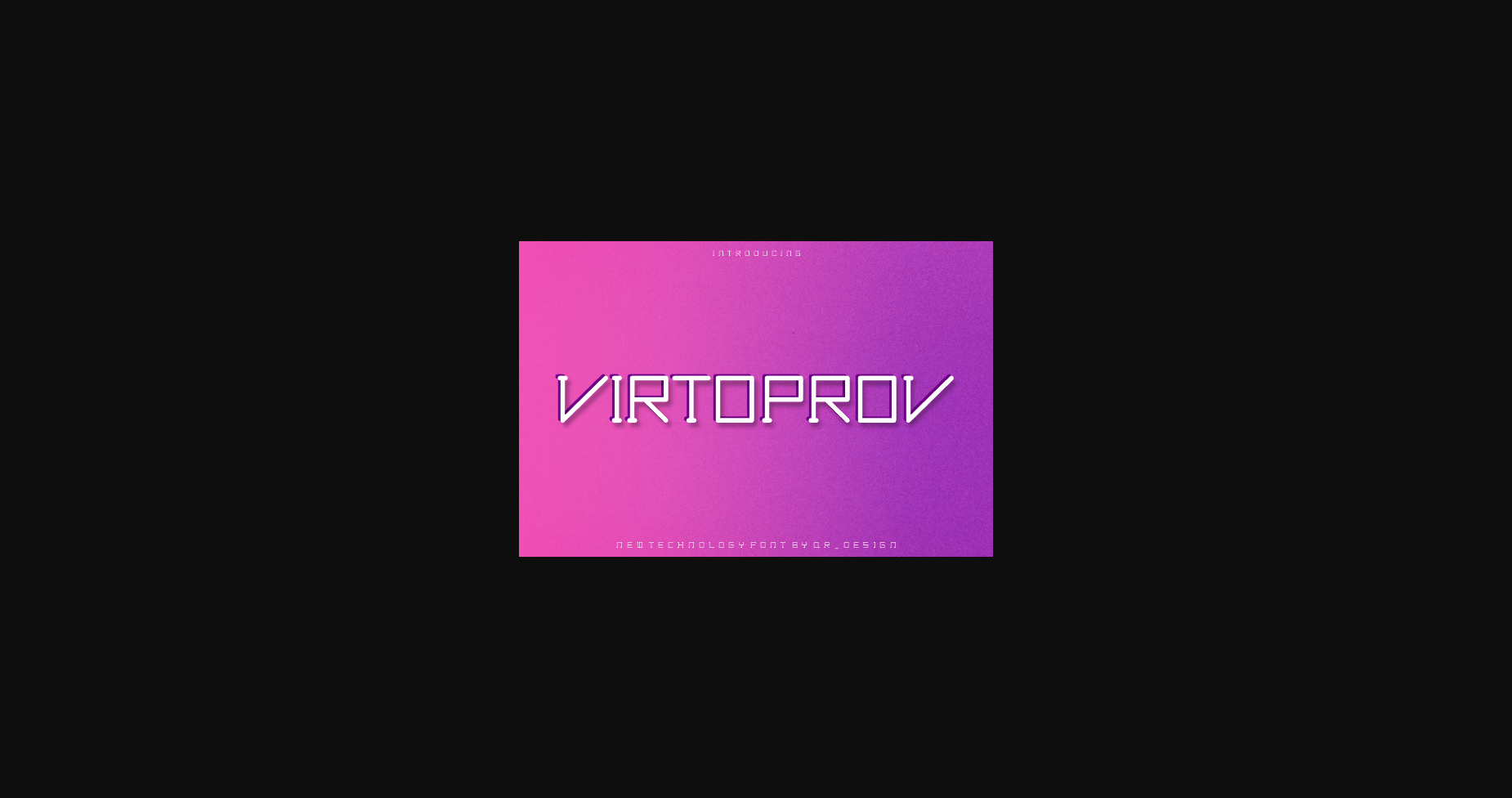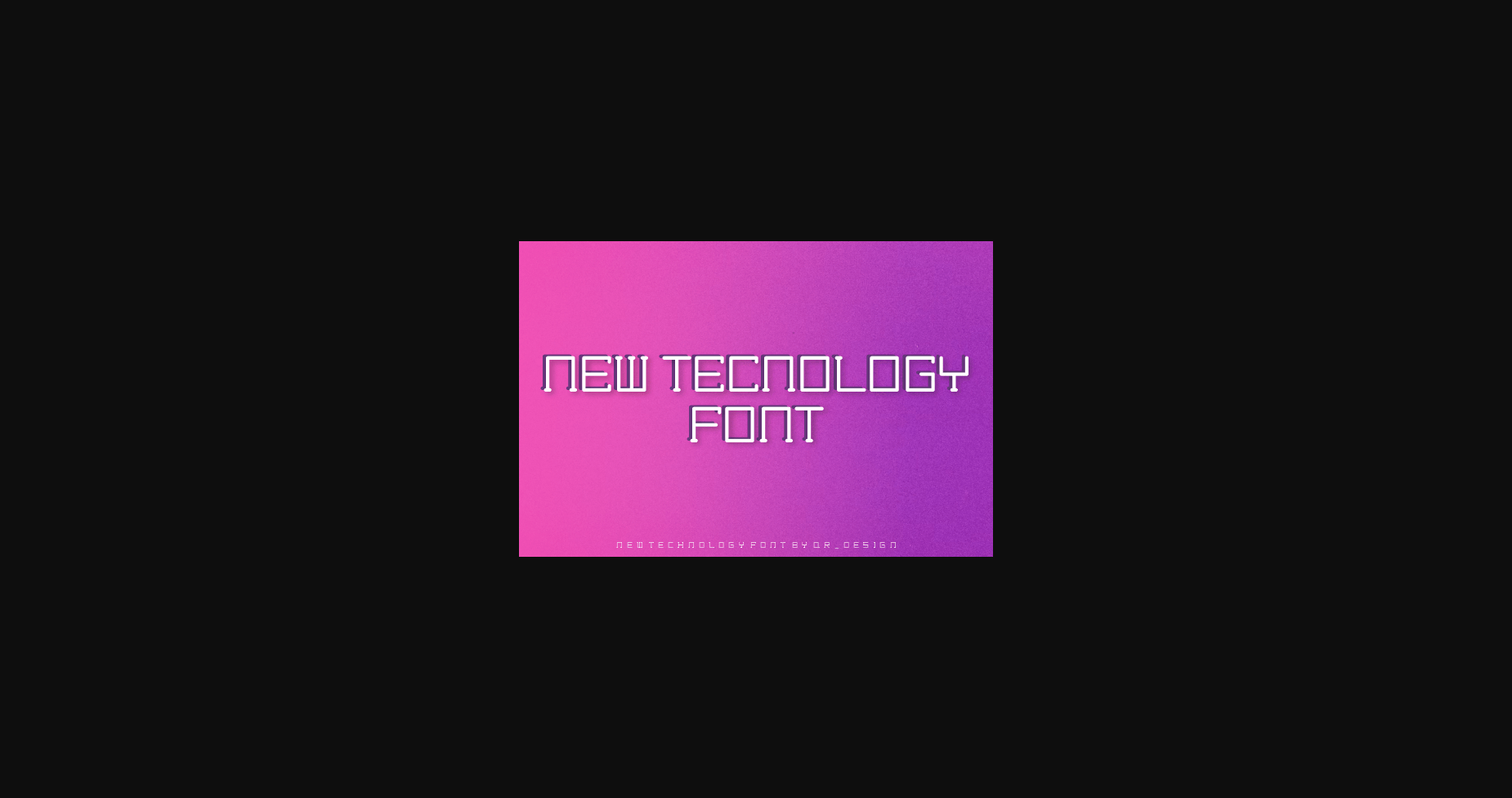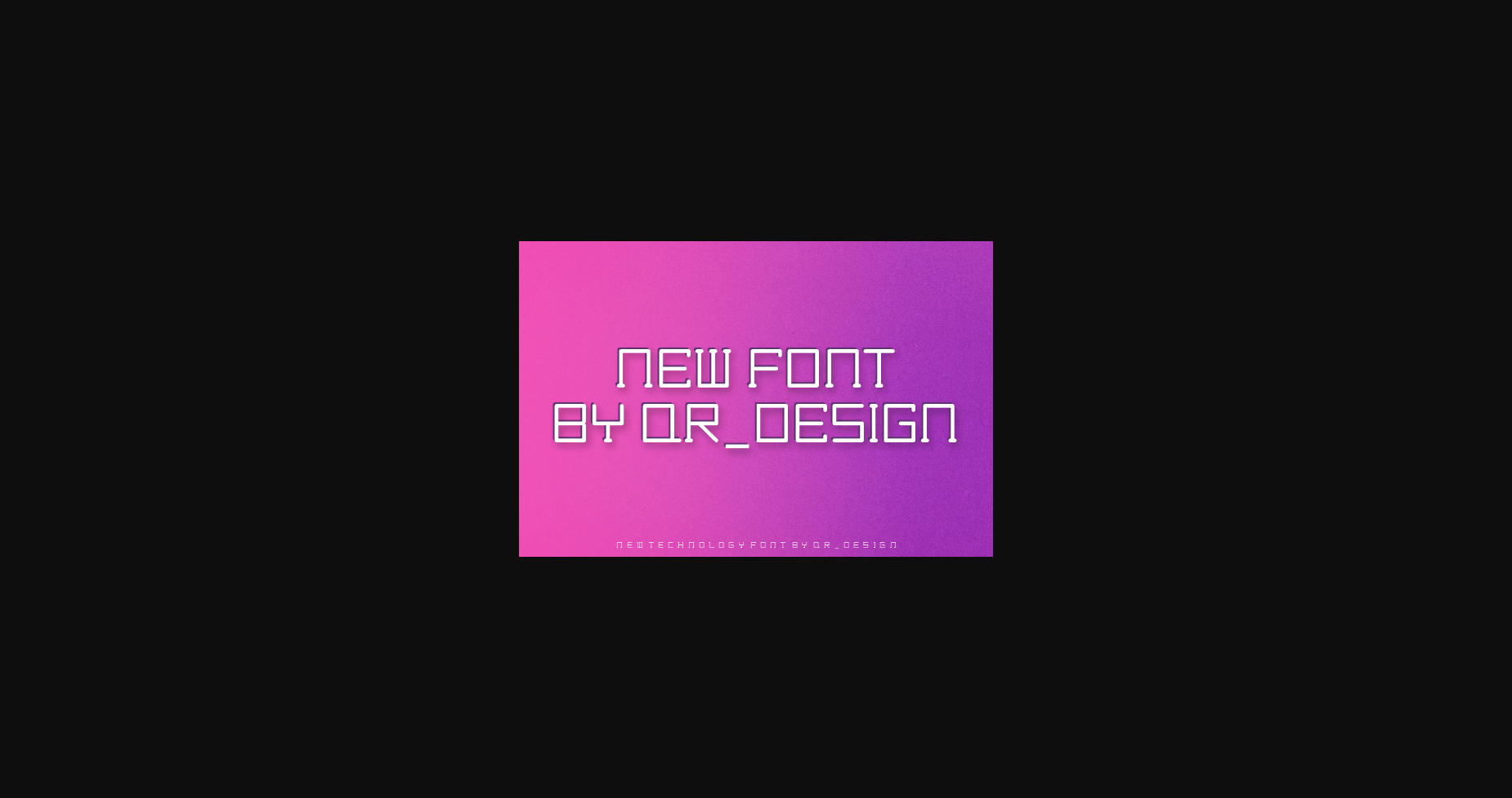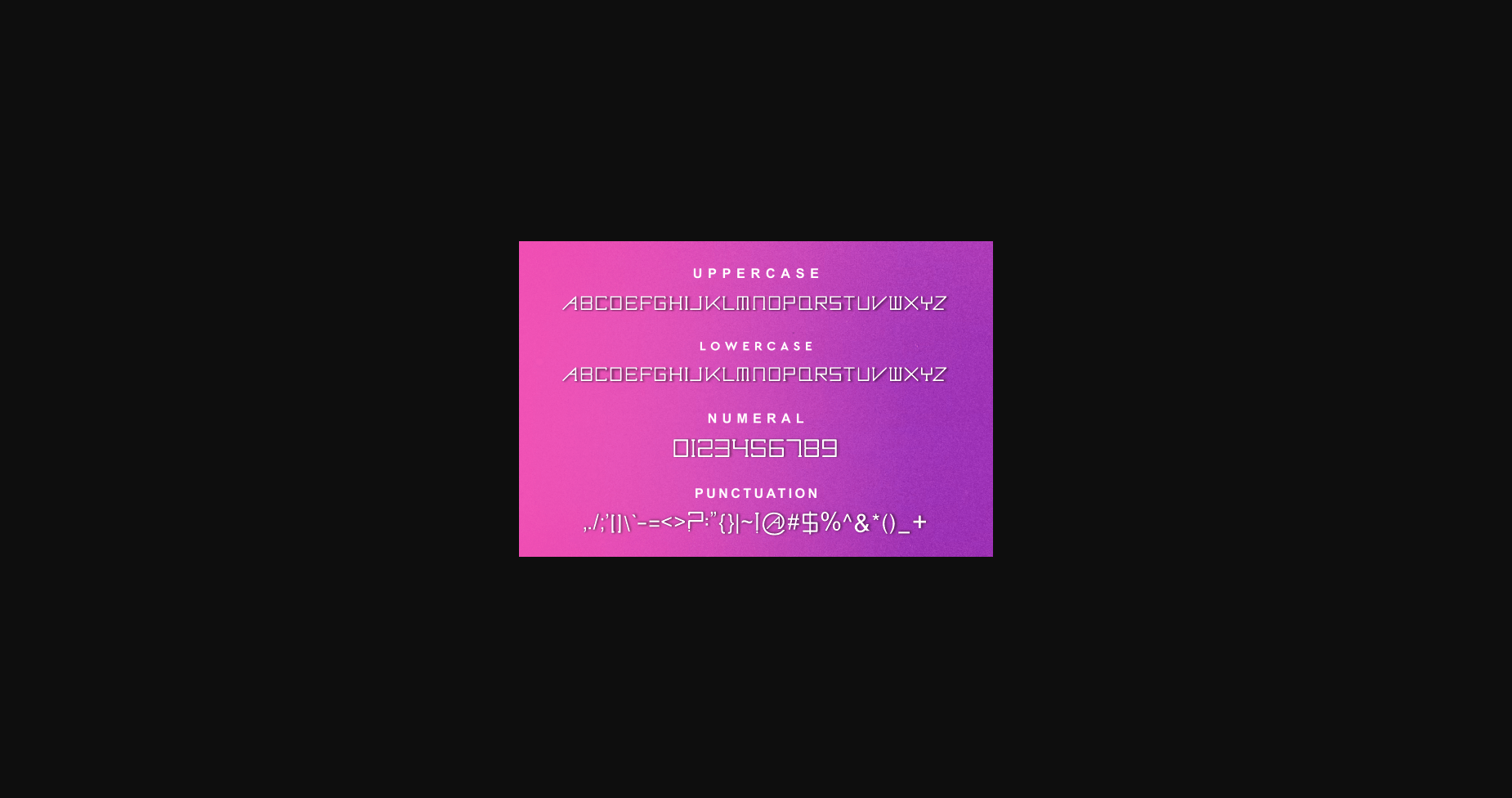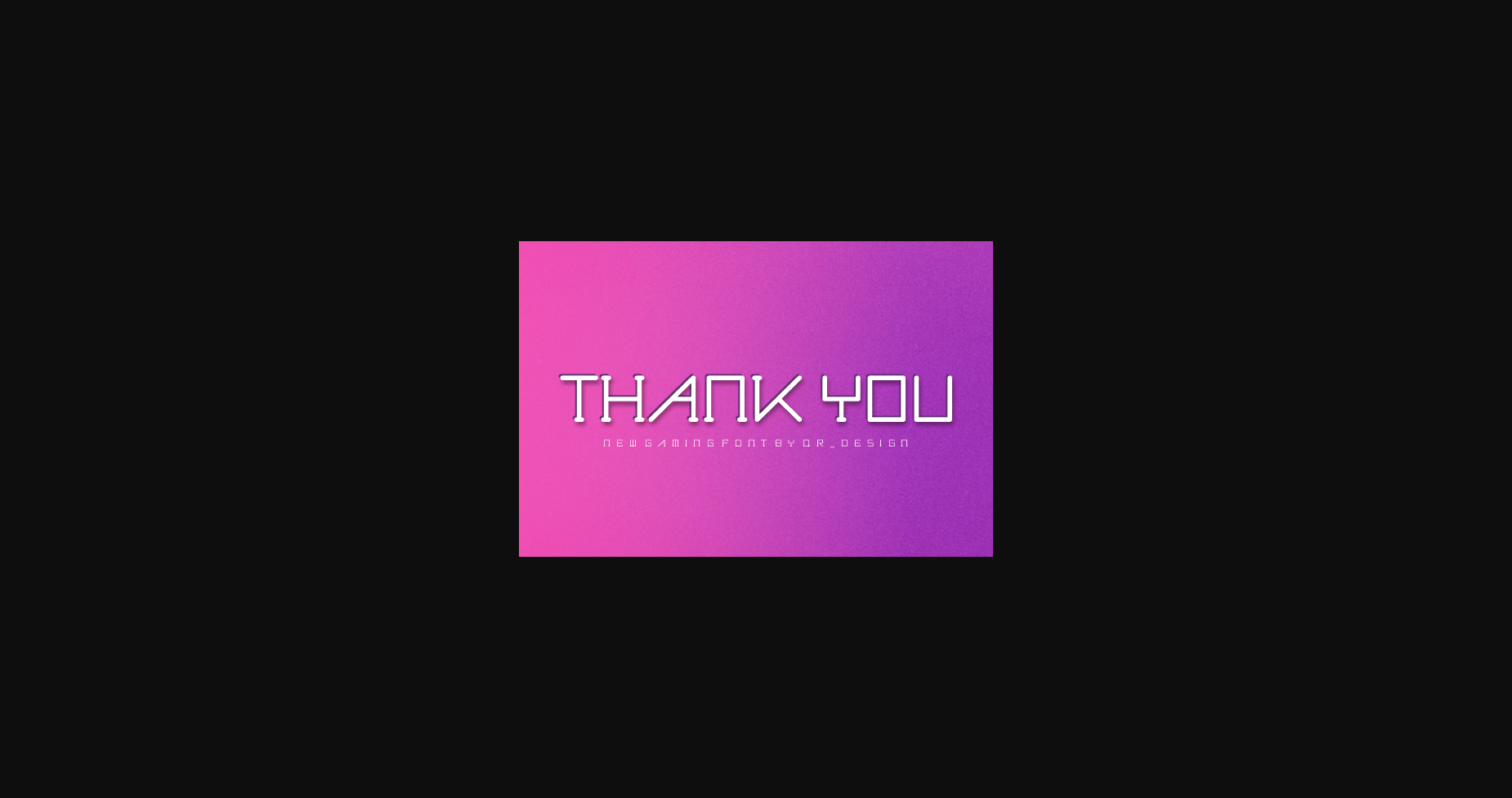
Virtoprov Font
About Virtoprov Font
Virtoprov – Techno Font is a bold and authentic display font. The font is suitable for any branding project like logo, t-shirt printing, esport, and many more. outstanding in a wide range of contexts.